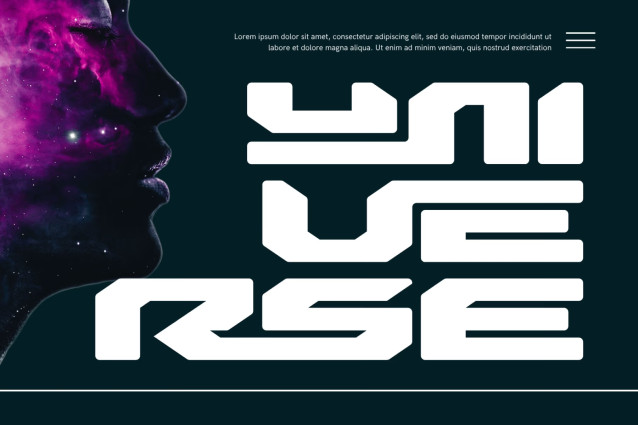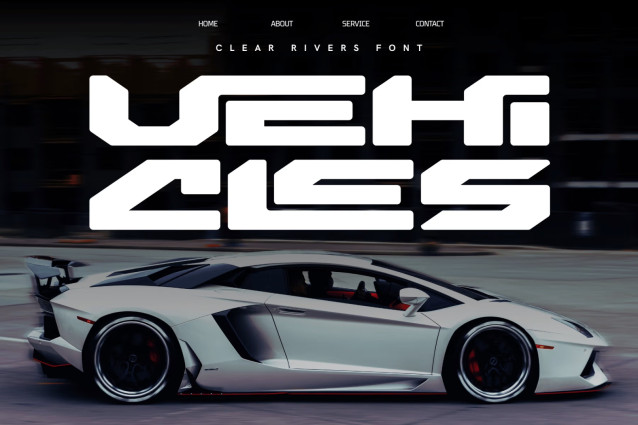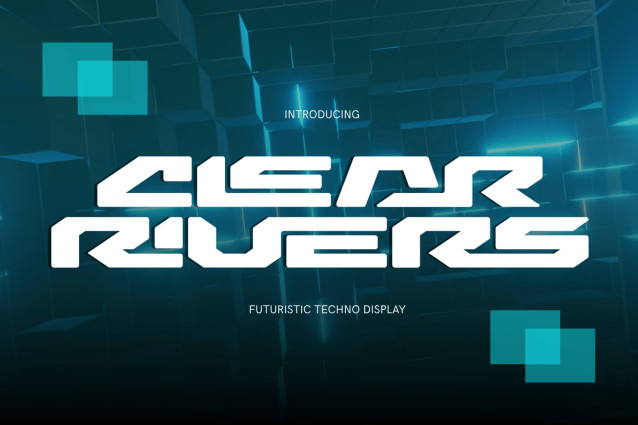
CLEAR RIVERS – FUTURISTIC FONT
CLEAR RIVERS – FUTURISTIC FONT – Futuristic Sci-Fi Techno & Chamfered Extended Display Font is a high-impact, futuristic display font engineered at the dynamic intersection of aerospace geometry, heavy mecha aesthetics, and cutting-edge gaming typography. Defined by its ultra-wide extended stance, aggressive 45-degree chamfered corners, and aerodynamic cutouts, this font commands instant visual authority across modern digital layouts.
Designed to give display titles and headlines an unyielding, high-tech presence, CLEAR RIVERS delivers a powerful sense of speed, mechanical precision, and galactic exploration. Its heavy geometric structure and sharp angular details make it the definitive typographic choice for esports team brandings, sci-fi gaming titles, futuristic movie posters, automotive graphics, techwear apparel design, and high-concept logos.